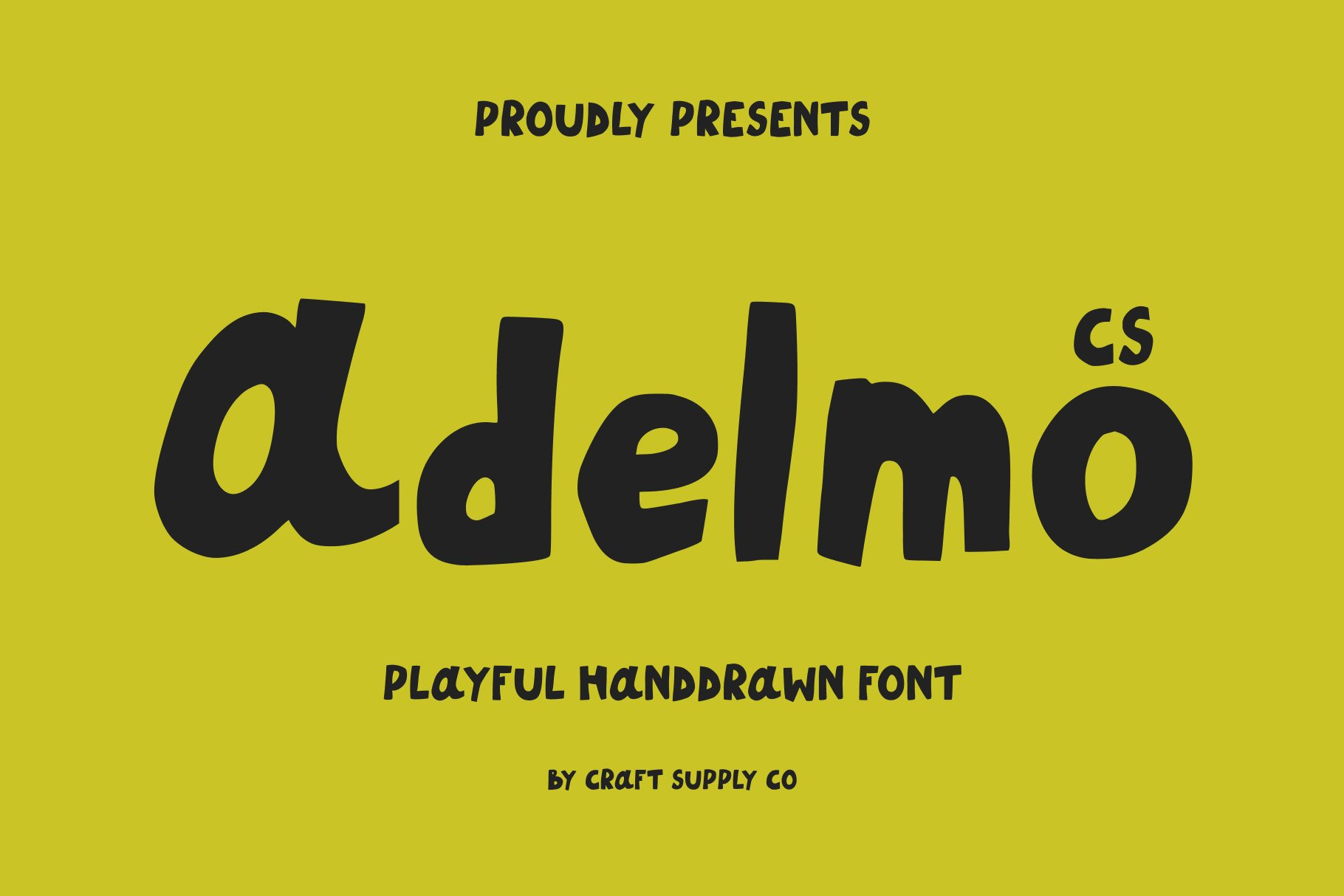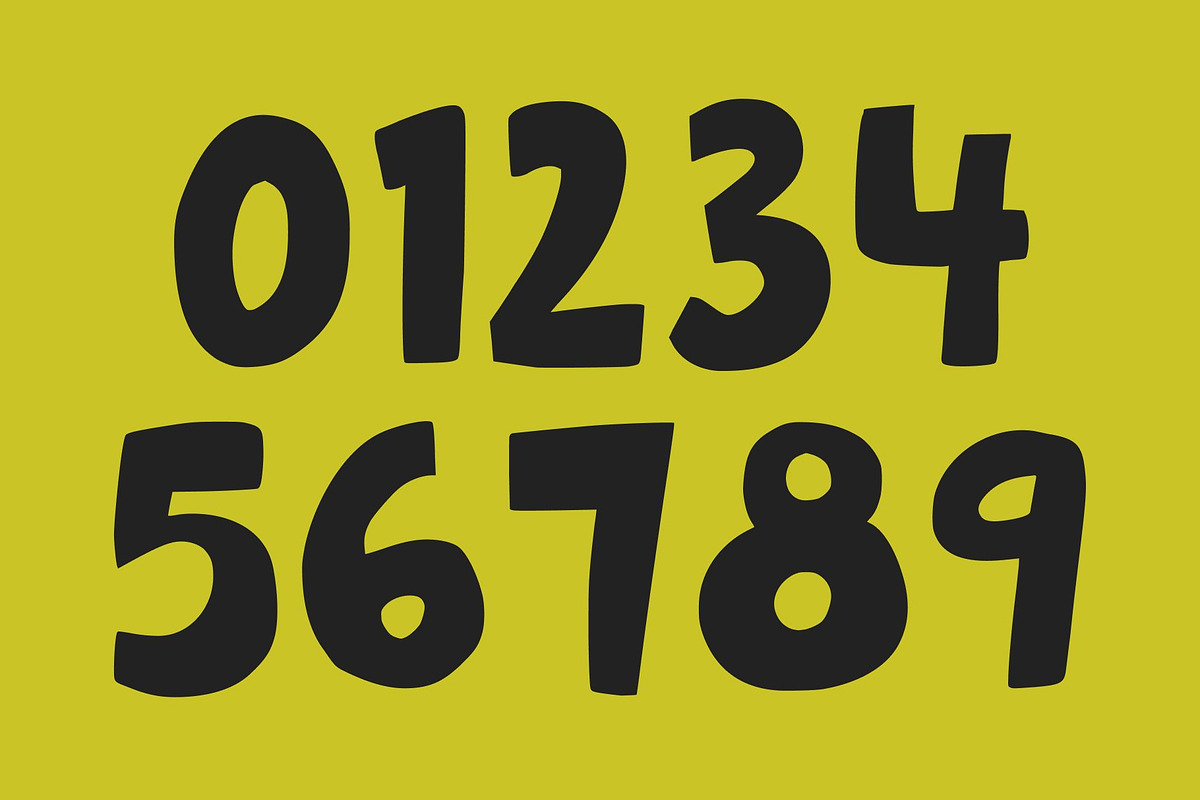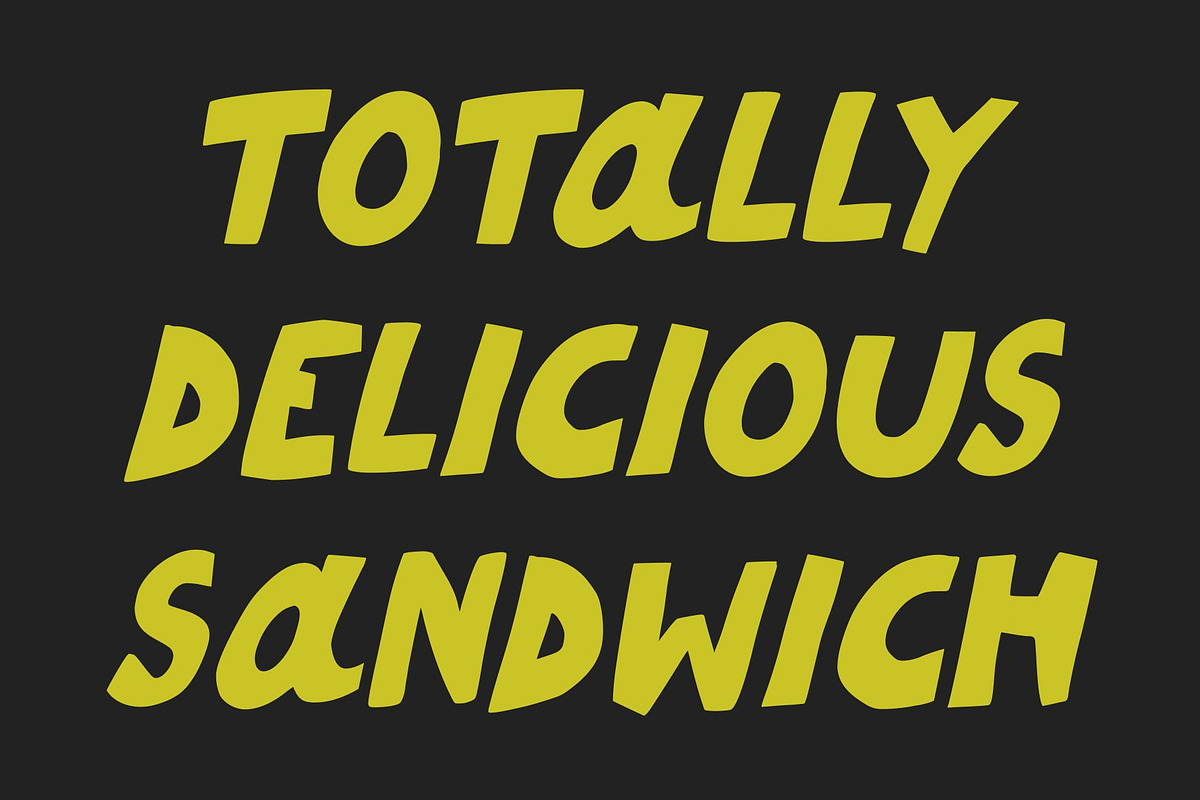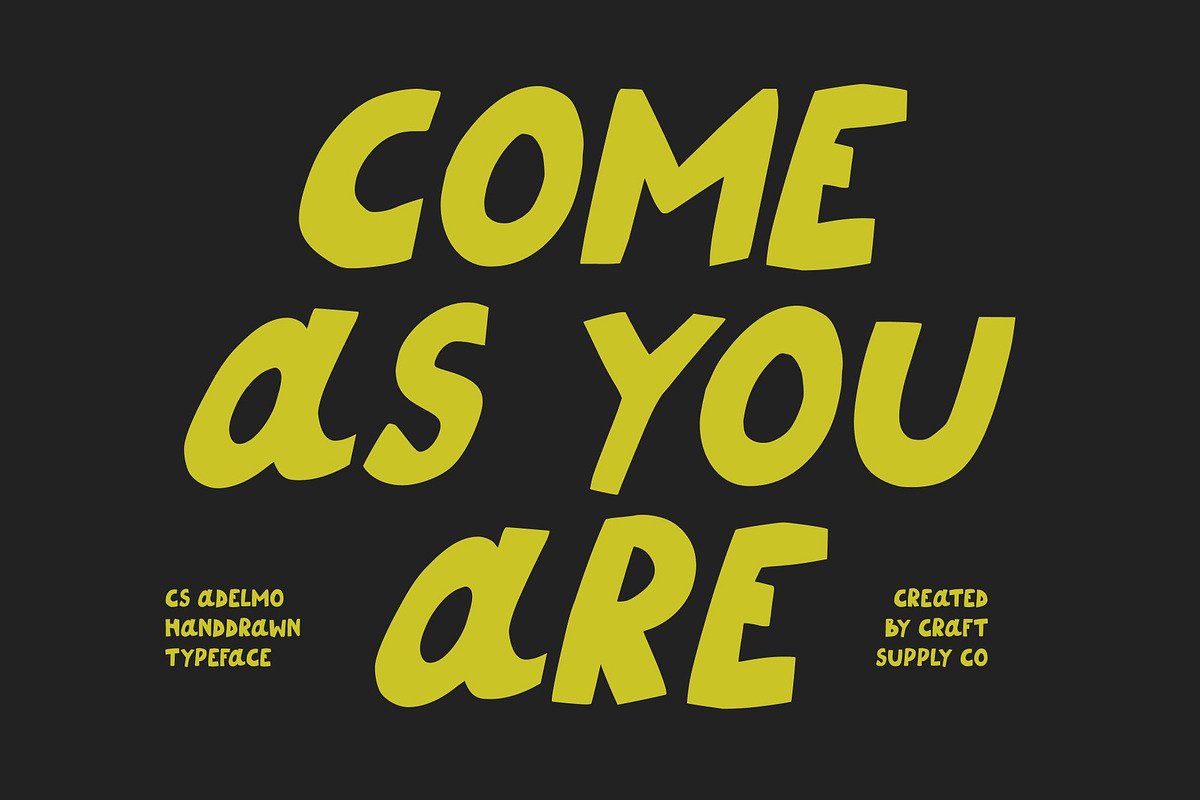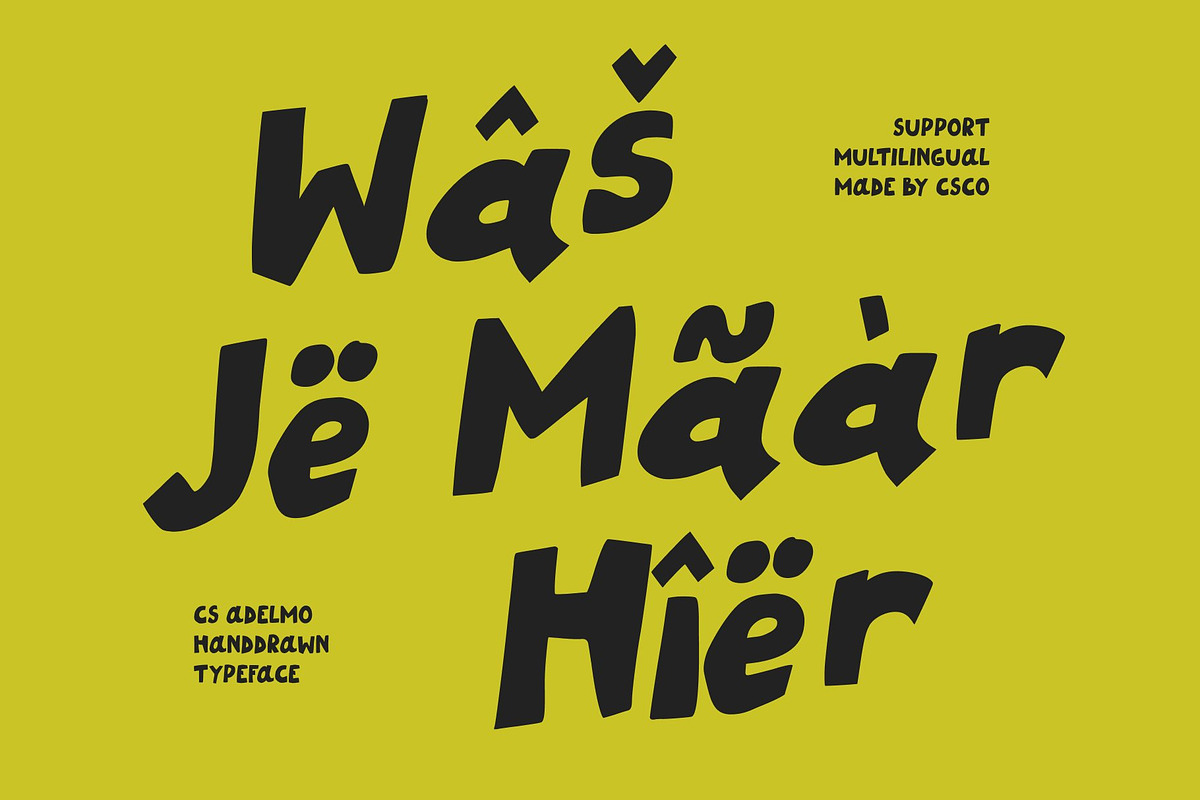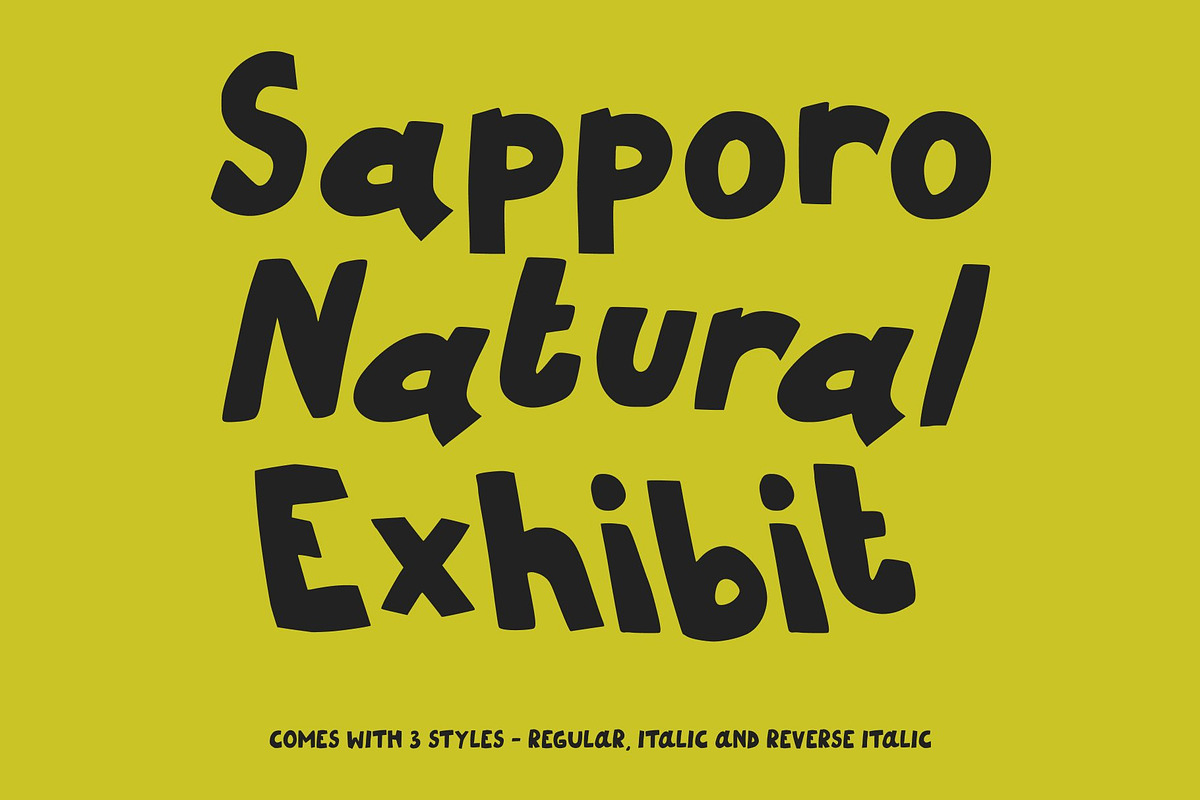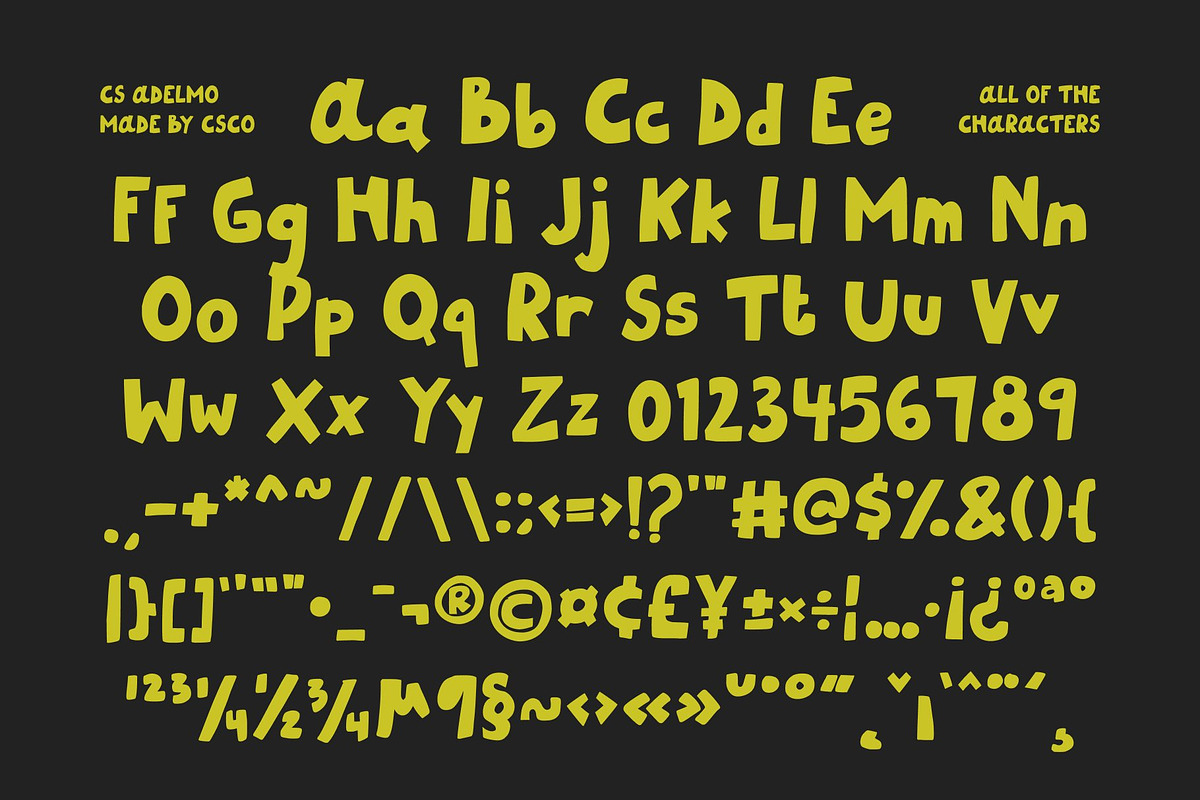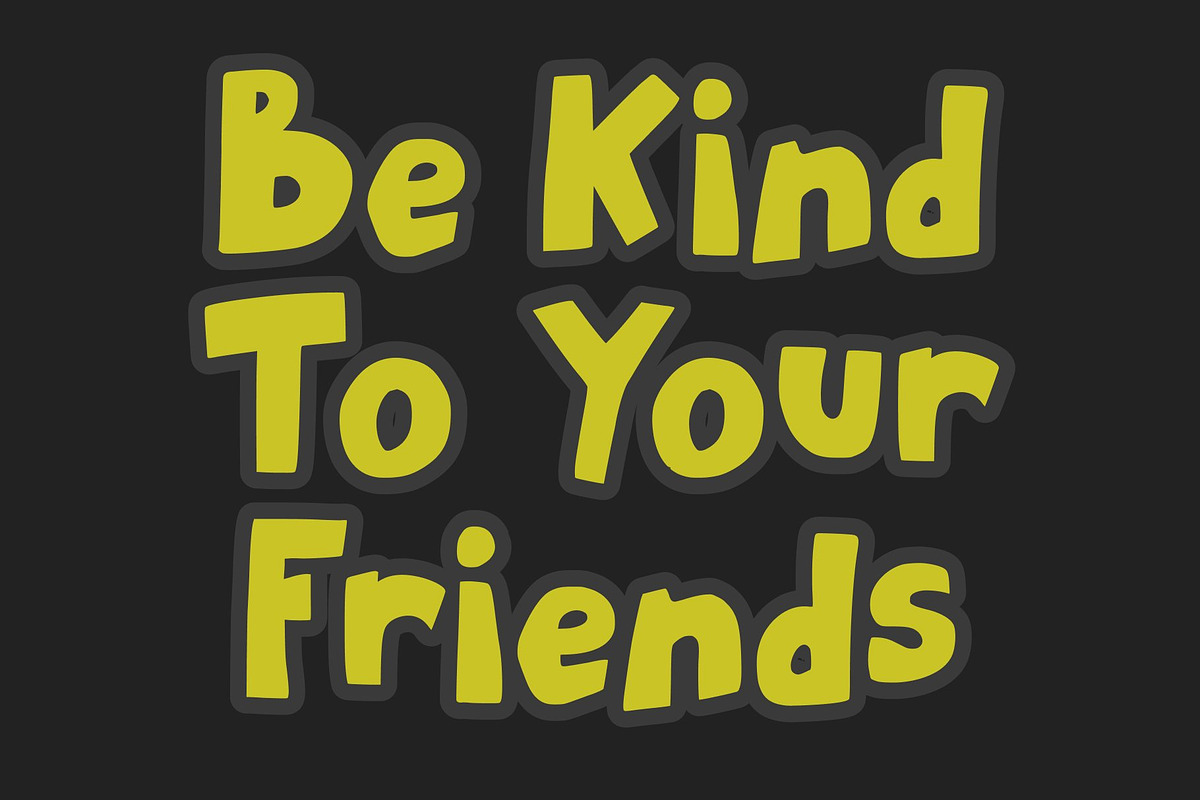
CS Adelmo – Playful Font
CS Adelmo – Modern Handwritten Display Full of Cheerful Expression
Modern Character with Playful Handwritten Charm This is a modern display font infused with a lively handwritten style that brings spontaneity and warmth to every design. Its naturally drawn strokes create a friendly and expressive rhythm, making each letter feel personal and full of charm. This blend of modern structure and handcrafted individuality results in a font that radiates creativity, joy, and approachability.
Natural Strokes for an Authentic Personal Touch The hand-drawn essence of this font gives it a beautifully organic flow. Each curve and line feels deliberately crafted yet delightfully imperfect celebrating the energy of expressive handwriting. This natural feel adds depth, personality, and authenticity to any layout, helping designs stand out with a warm, human touch.
Playful Energy for Cheerful, Engaging Designs This font’s playful and cheerful vibe makes it incredibly versatile for creative storytelling. Its expressive shapes and friendly letterforms inject positivity and charm into every composition. Whether you want to set a joyful tone or highlight artistic flair, this font brings brightness and vibrancy to your design work.
Perfect for Titles, Posters, Branding, and Creative Projects Ideal for titles, posters, branding, and creative projects, shines in applications that call for bold personality and modern handcrafted appeal. It works beautifully for product packaging, youthful brand identities, event graphics, social media visuals, and artistic displays.
- CS Adelmo Regular
- CS Adelmo Italic
- CS Adelmo Reverse Italic